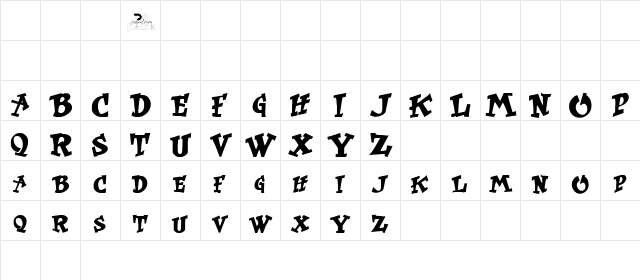
KurtRussell Regular
Design Context for KurtRussell Typeface
KurtRussell is a composed and adaptable typeface that performs quietly and consistently across a wide range of design contexts.